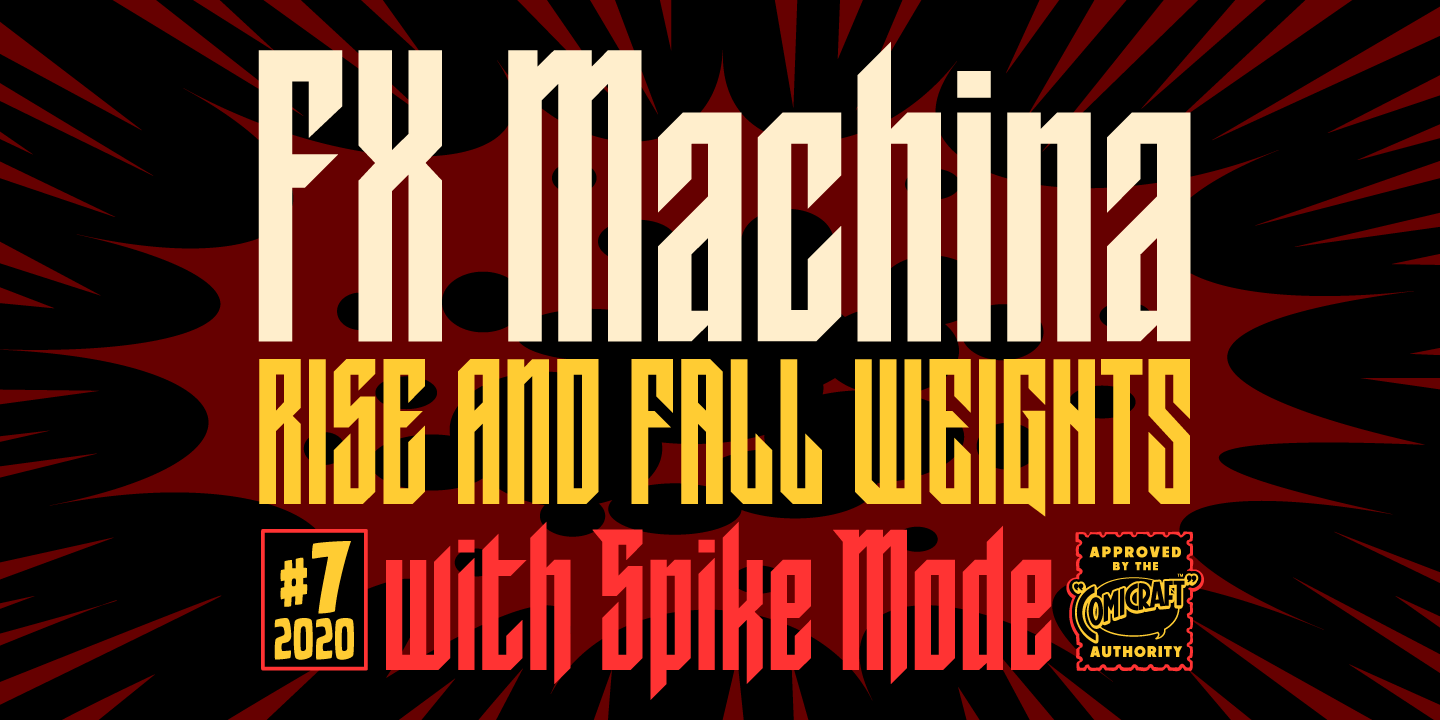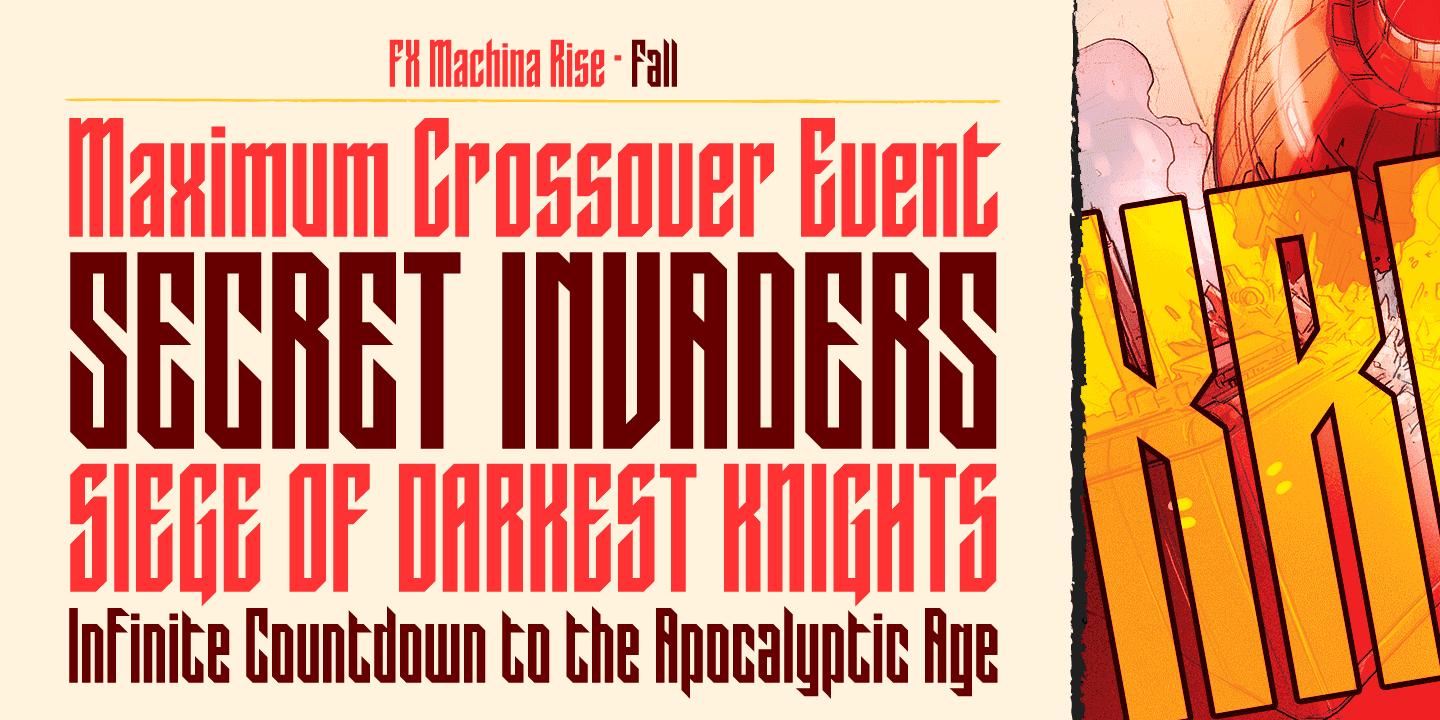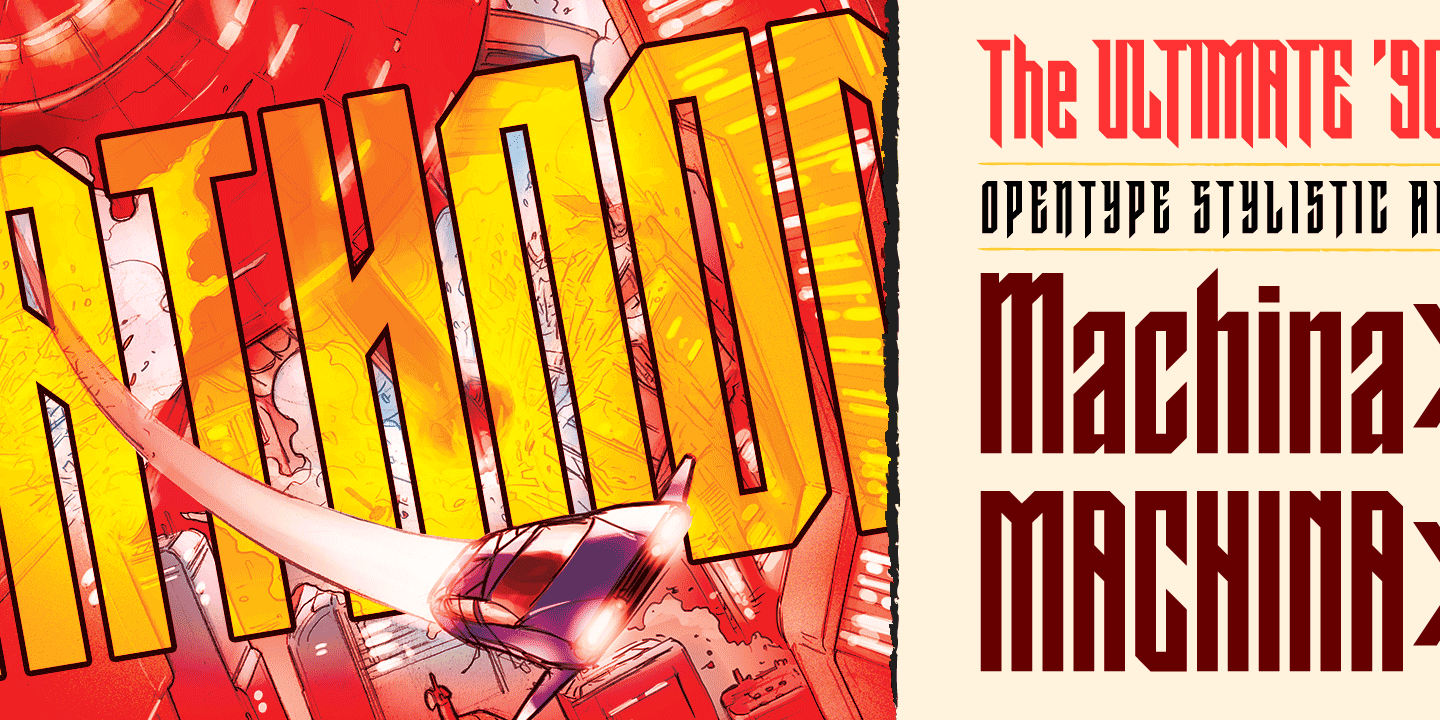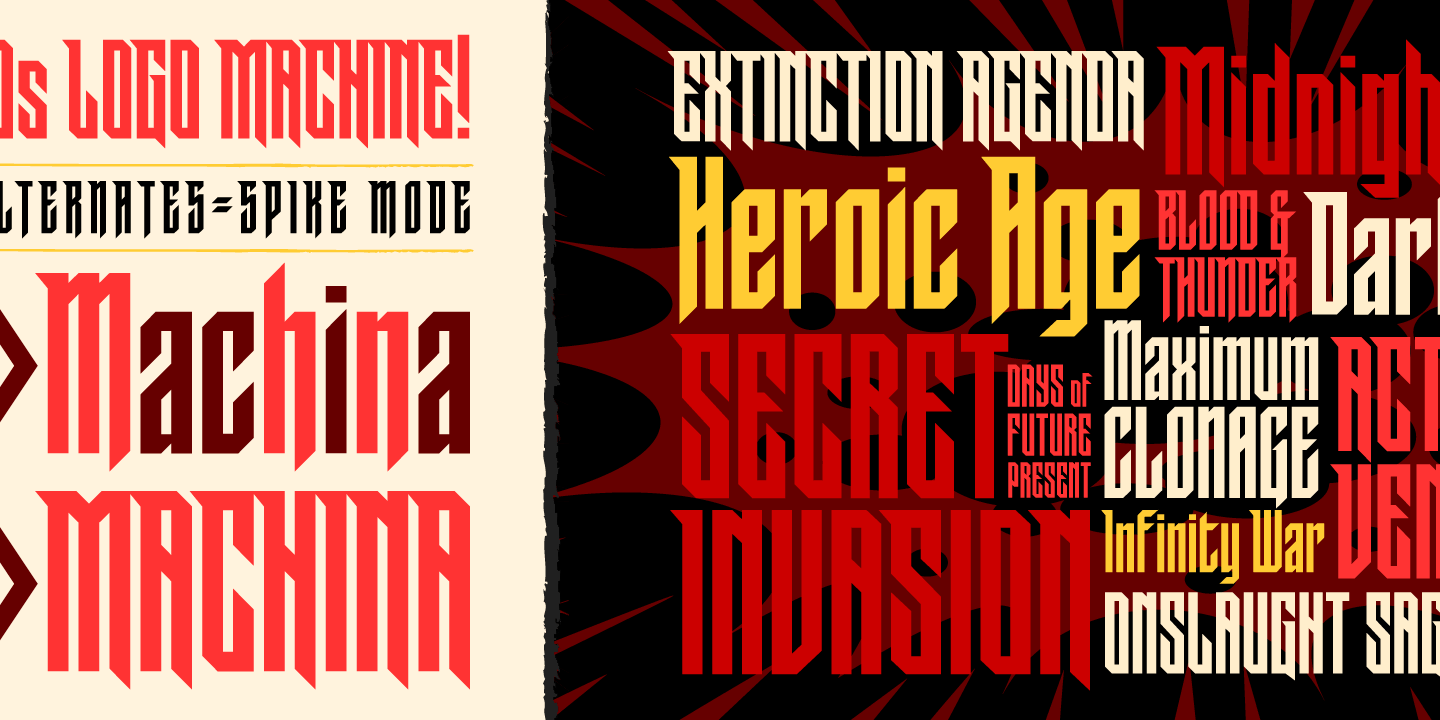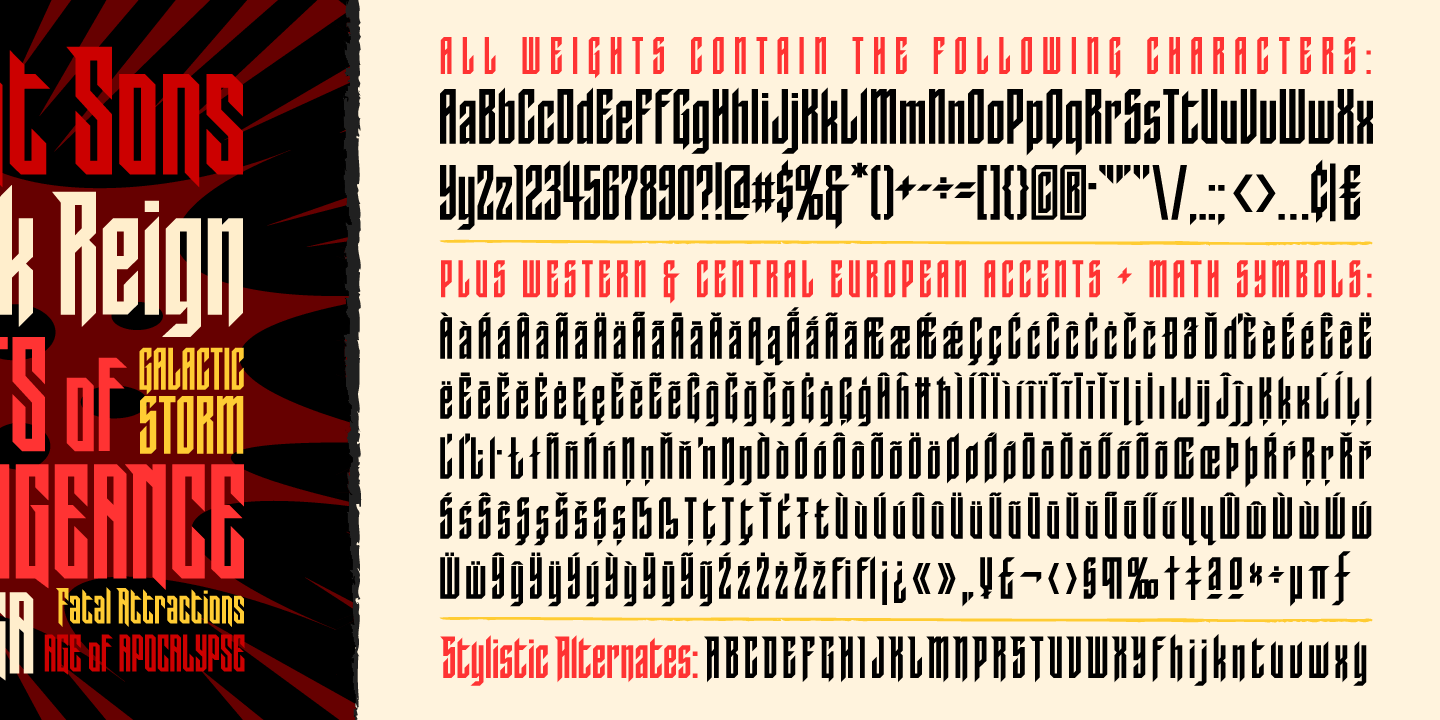
FXMachina
Font Family by Comicraft Fonts
YES! Seemingly insoluble lettering challenges can now be resolved by Comicraft’s uneFXpected and eFXceptional new font, FXMACHINA! Generate Enormous Threatening Sound Effects or Sinister Spikey Logos and Titanic Title Lettering with this Nefarious Machination designed by John Roshell.
Crossover Events between Parallel Universes will instantly become Darker and more Secretive with the application of this Apocalyptic Omega/Alphabet. It’s like a Celestial Intervention!
FXMachina features two weights – Rise and Fall – each with “Spike Mode” in the Opentype Stylistic Alternates.